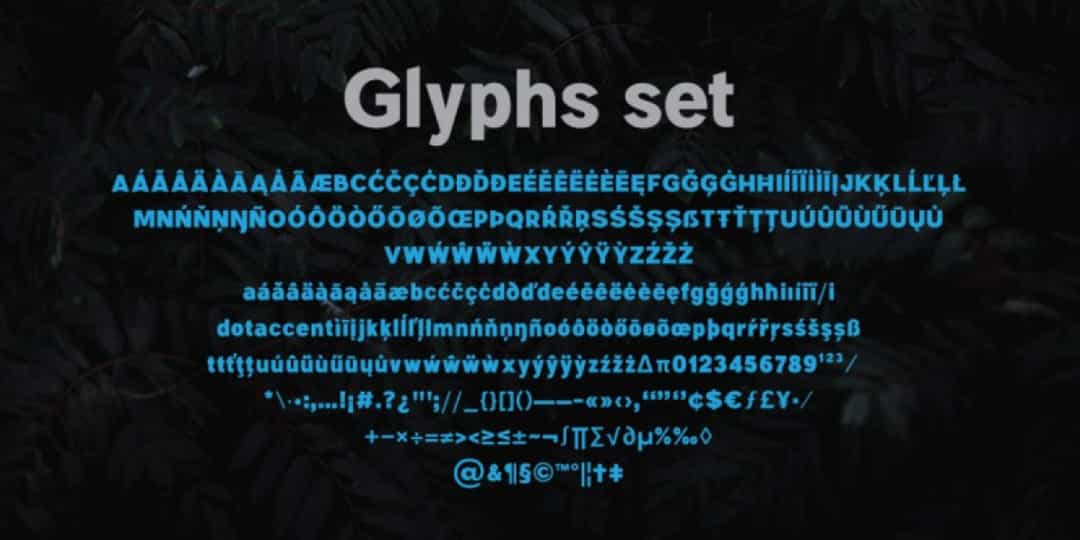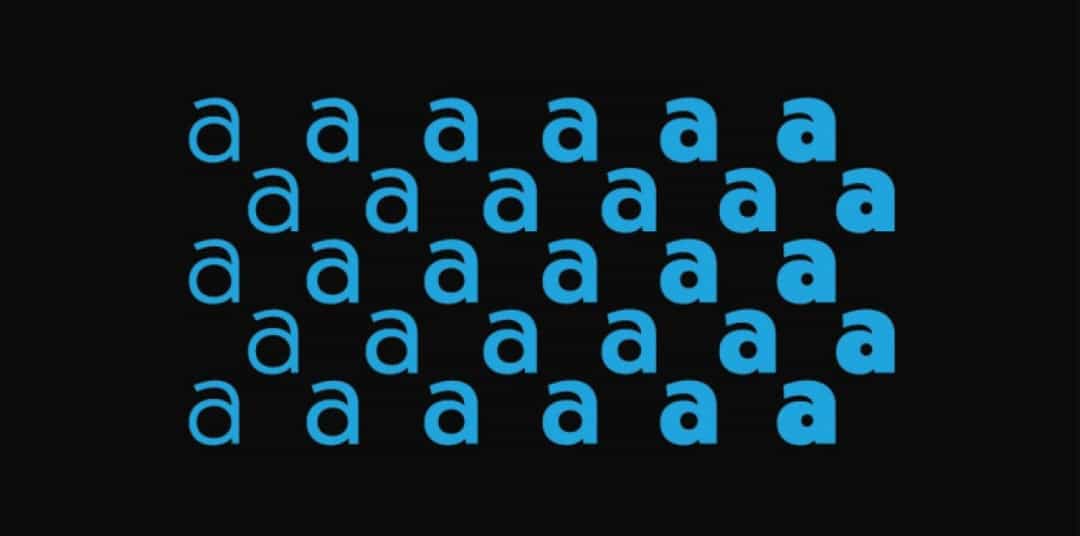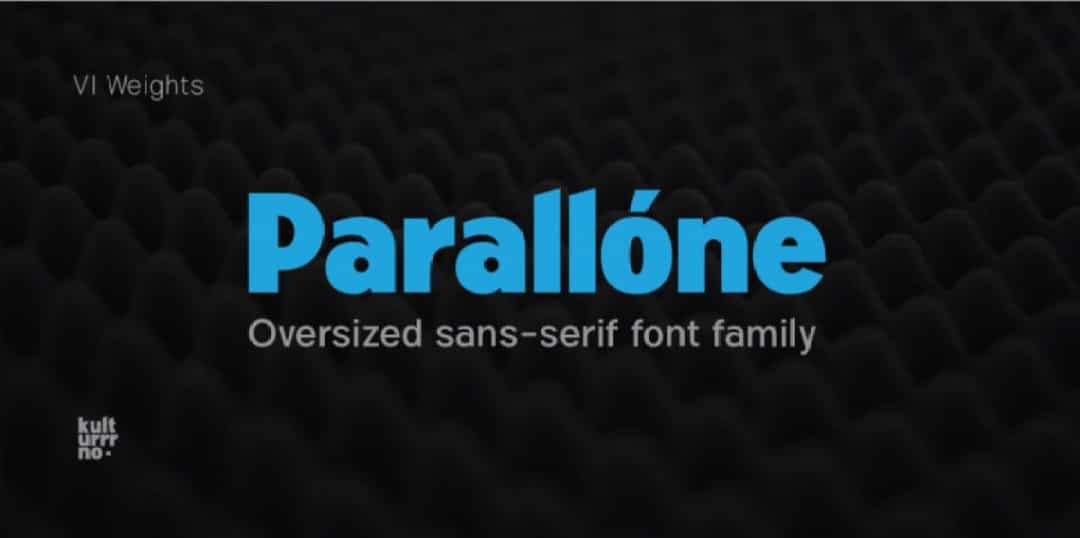
Parallone Font Family is a modern sans serif font which will continue to be sought-after on multiple occasions and displays. Ideal for everyday life such as textbook quotes, branding products and book covers as well as formal/informal text displays, it provides text that matches any background image perfectly as well as formal/informal texts.